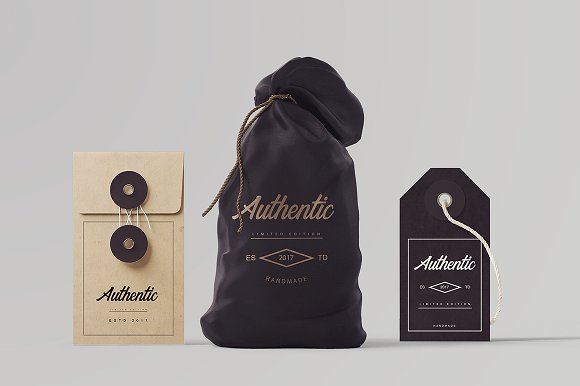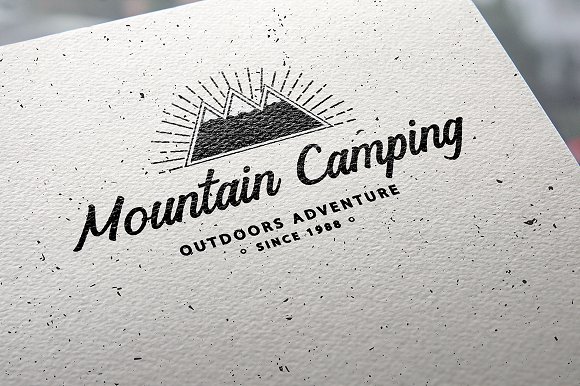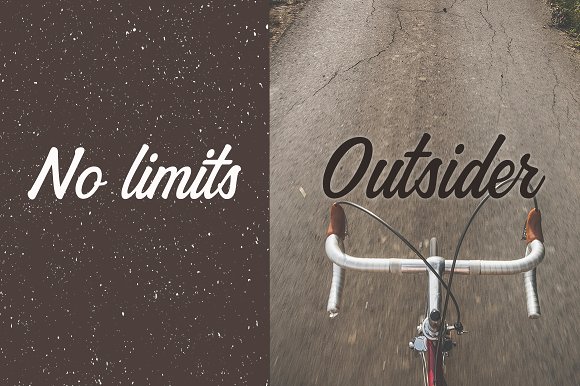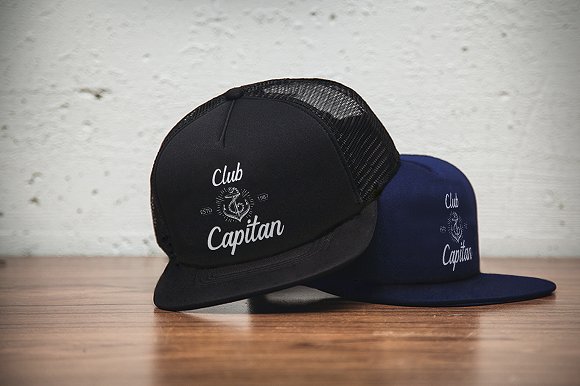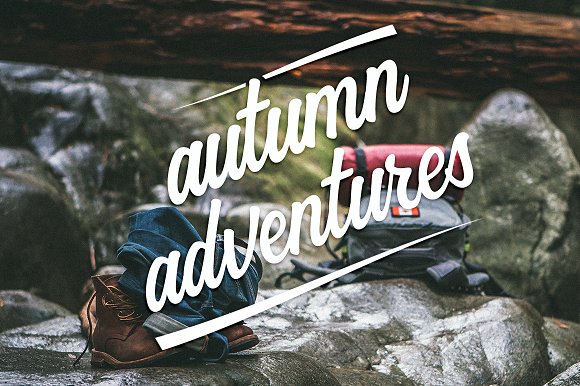
Alaska Font
If you are looking for a versatile font- you found it – it’s Alaska.
It will give you freedom of choice in design, it is suitable for almost everything: invitations, logos, printing on T-shirts, business cards, branding, creating sites. Anything is possible with Alaska!